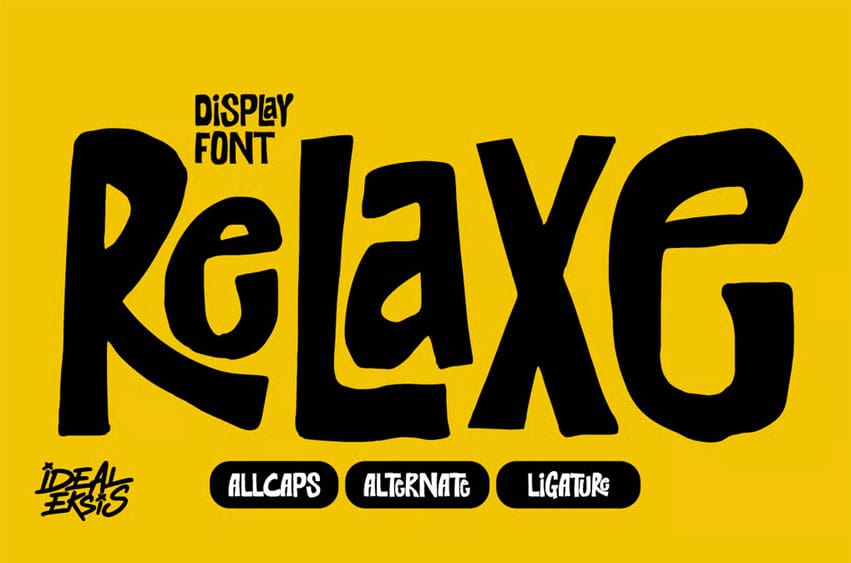
Relaxe Font is a bold and funky display with a casual retro feel and playful curves.
Designed to bring energy and character to any layout, it’s perfect for posters, packaging, logos, social media, and creative projects that need a vibrant, laid-back vibe.